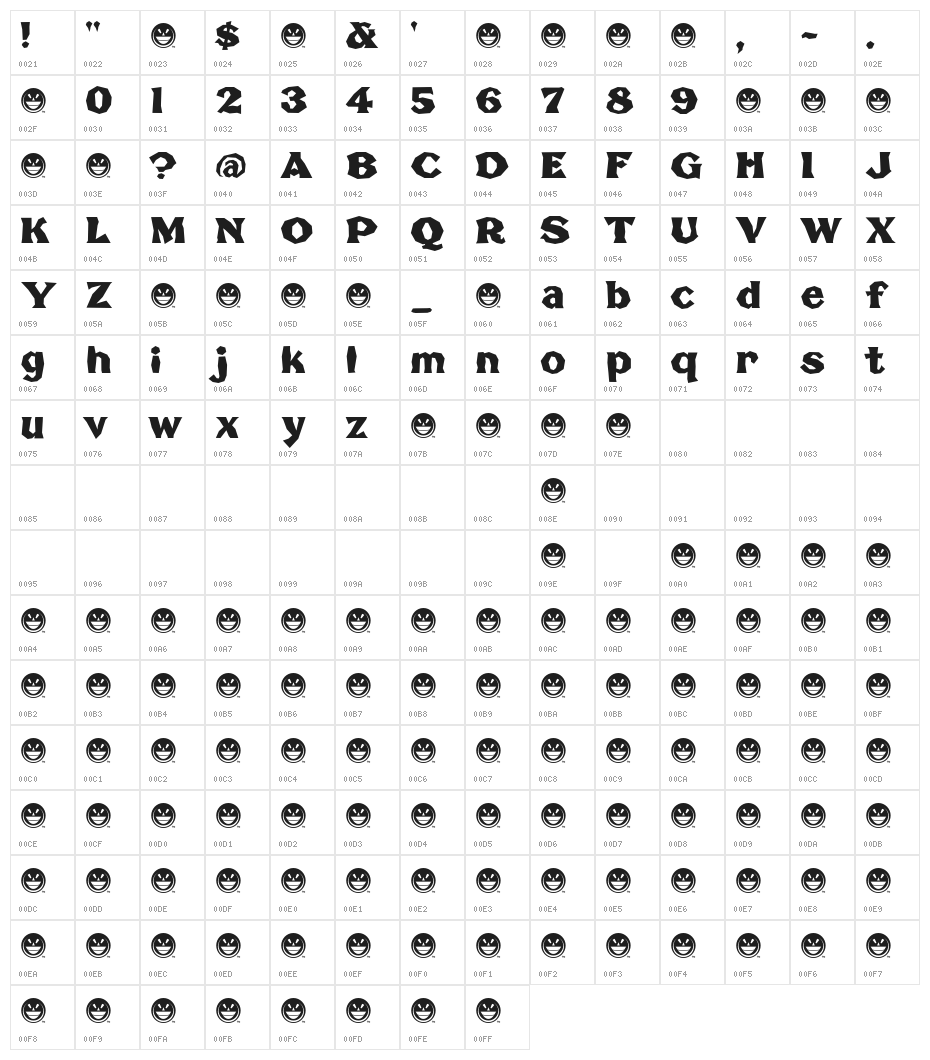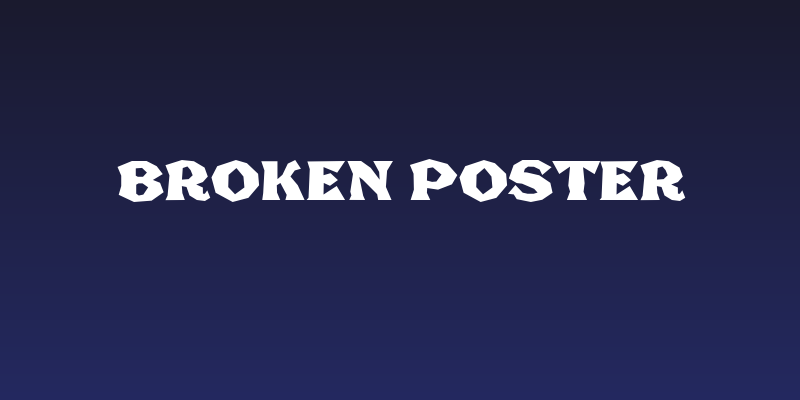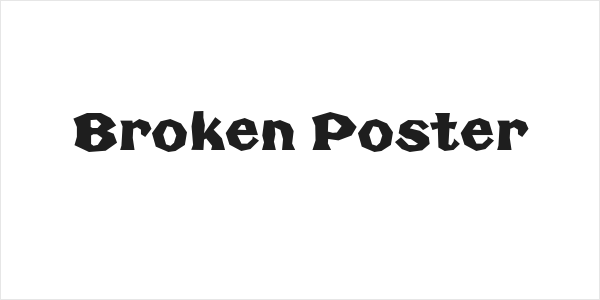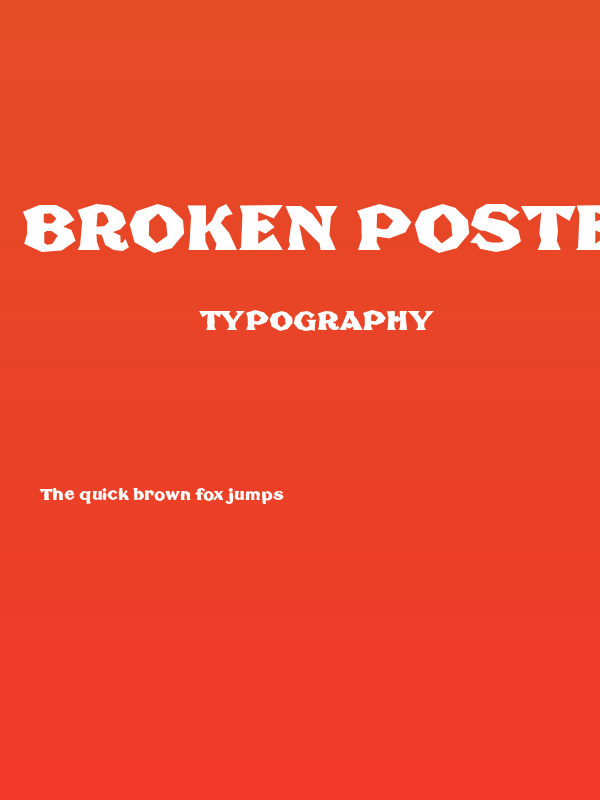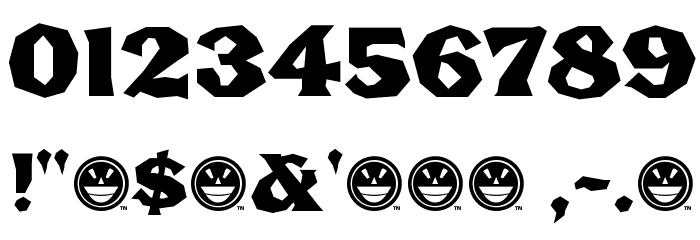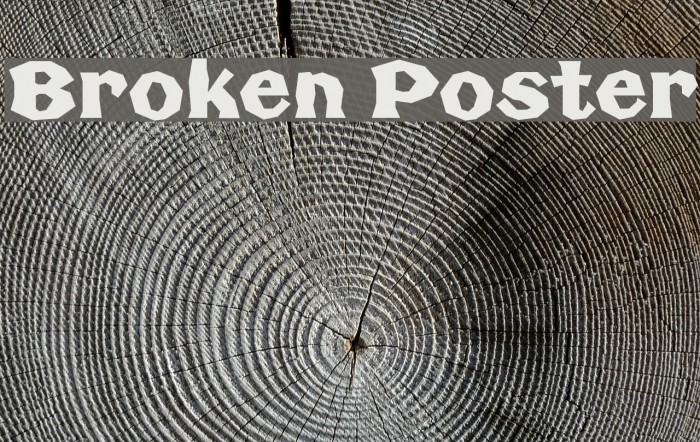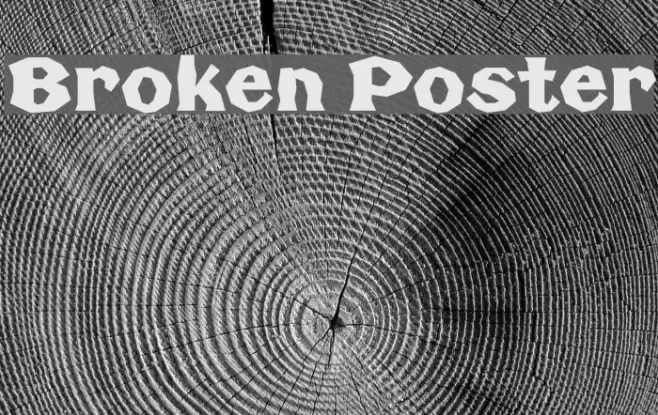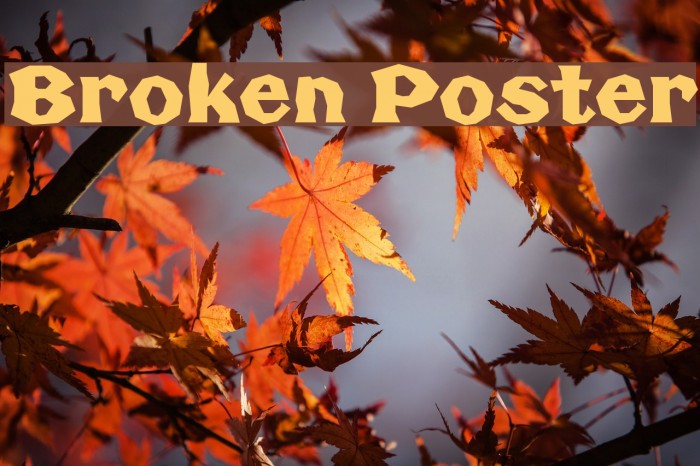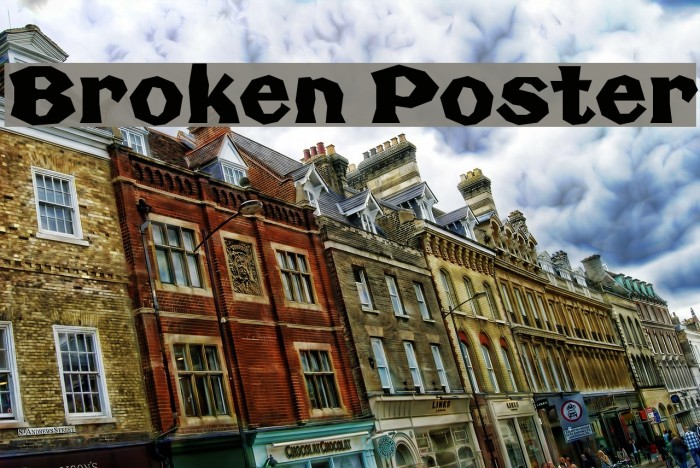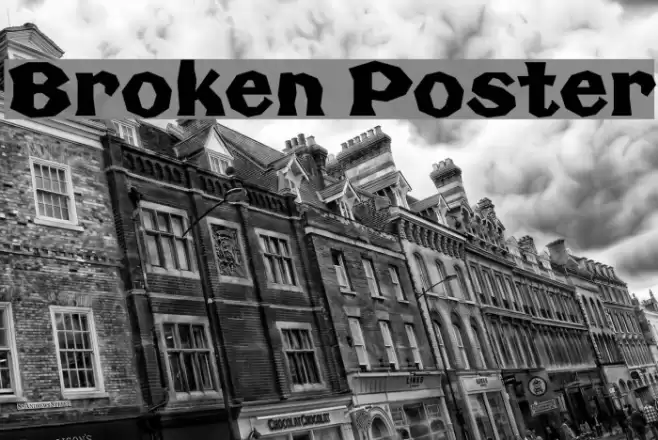
Broken Poster Font
Broken Poster Description
This font features a bold and edgy design with sharp, angular edges and a distressed appearance. The characters are heavily stylized, giving off a rugged and rebellious vibe. The uppercase and lowercase letters maintain a consistent style, with each character appearing as if it has been cut from a rough material. The numbers and special characters follow the same aesthetic, ensuring a cohesive look across all text. This font is ideal for projects that require a strong, impactful presence.
| Proposed Projects | Ideal for posters, album covers, branding for edgy products, or any design needing a strong, rebellious aesthetic. |